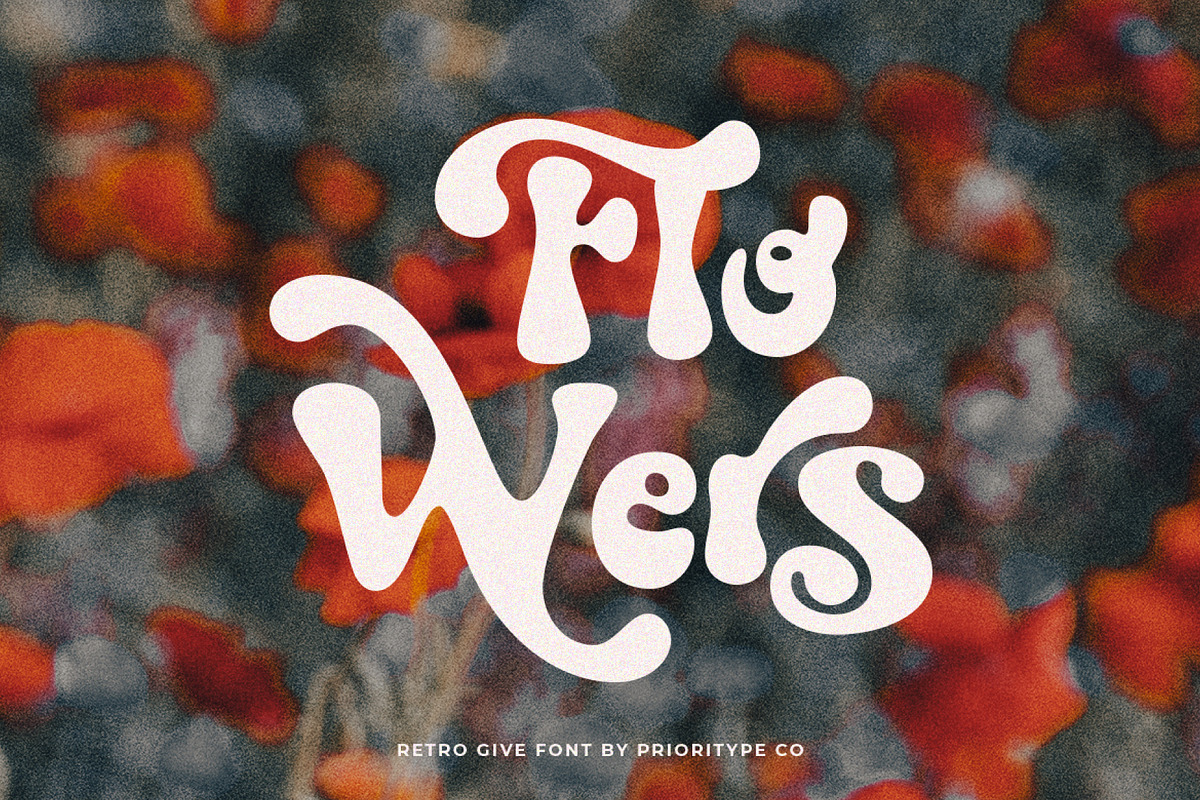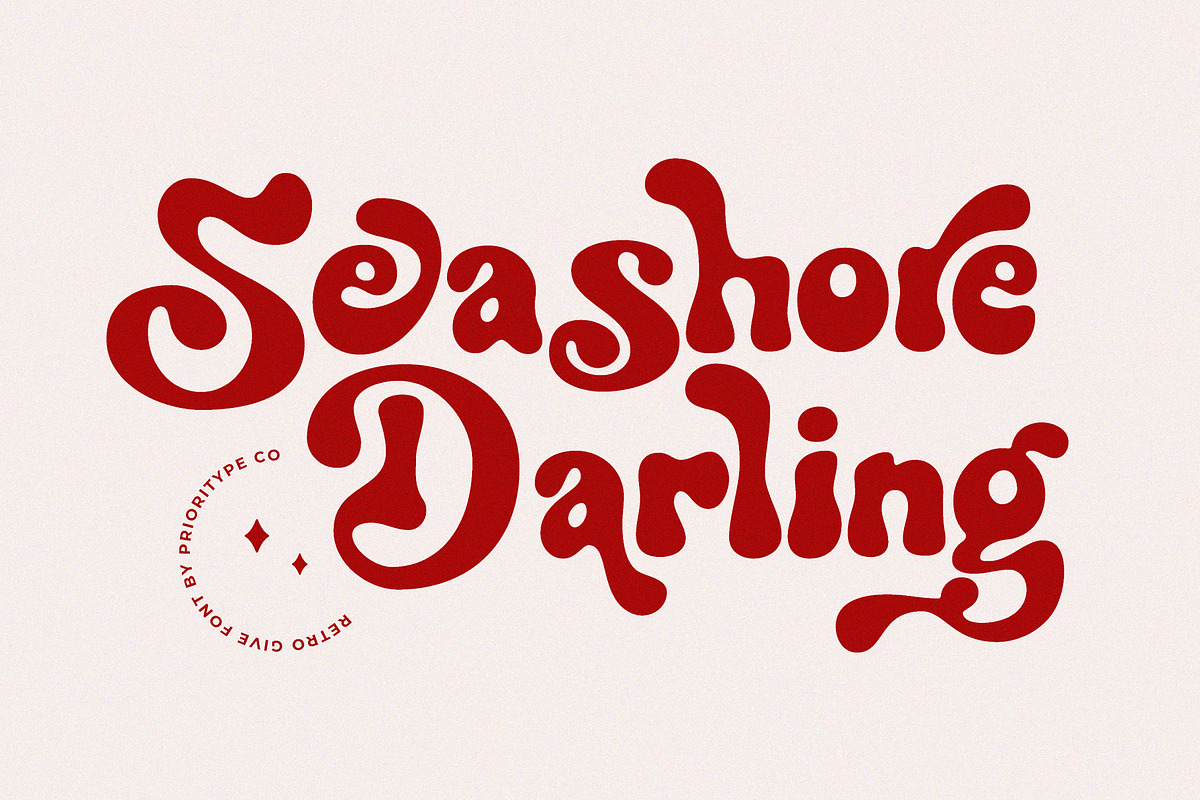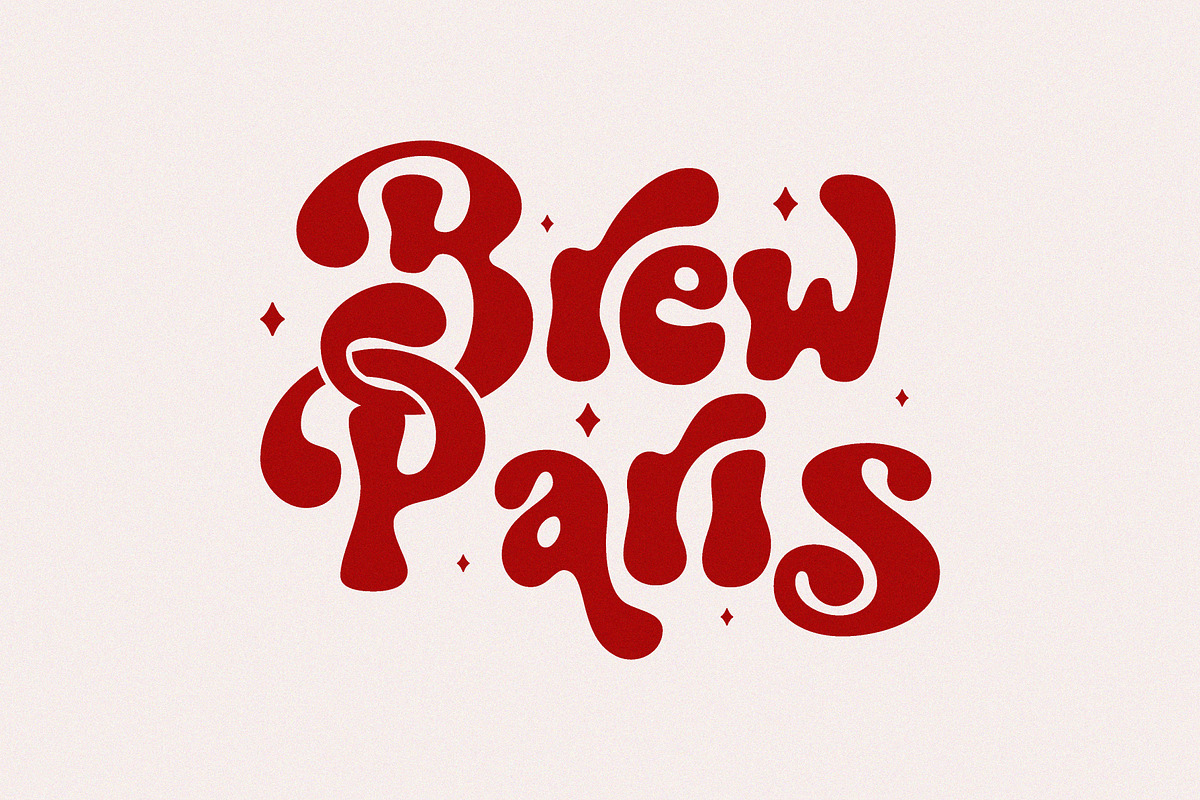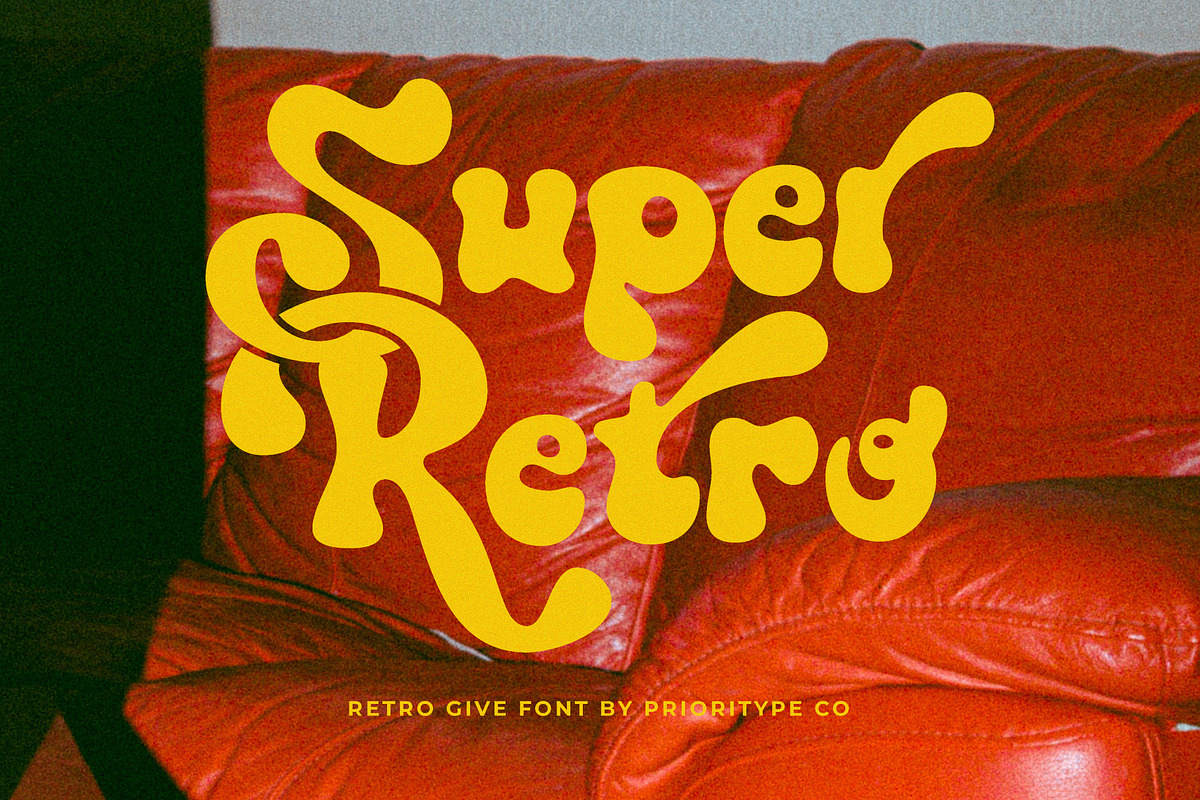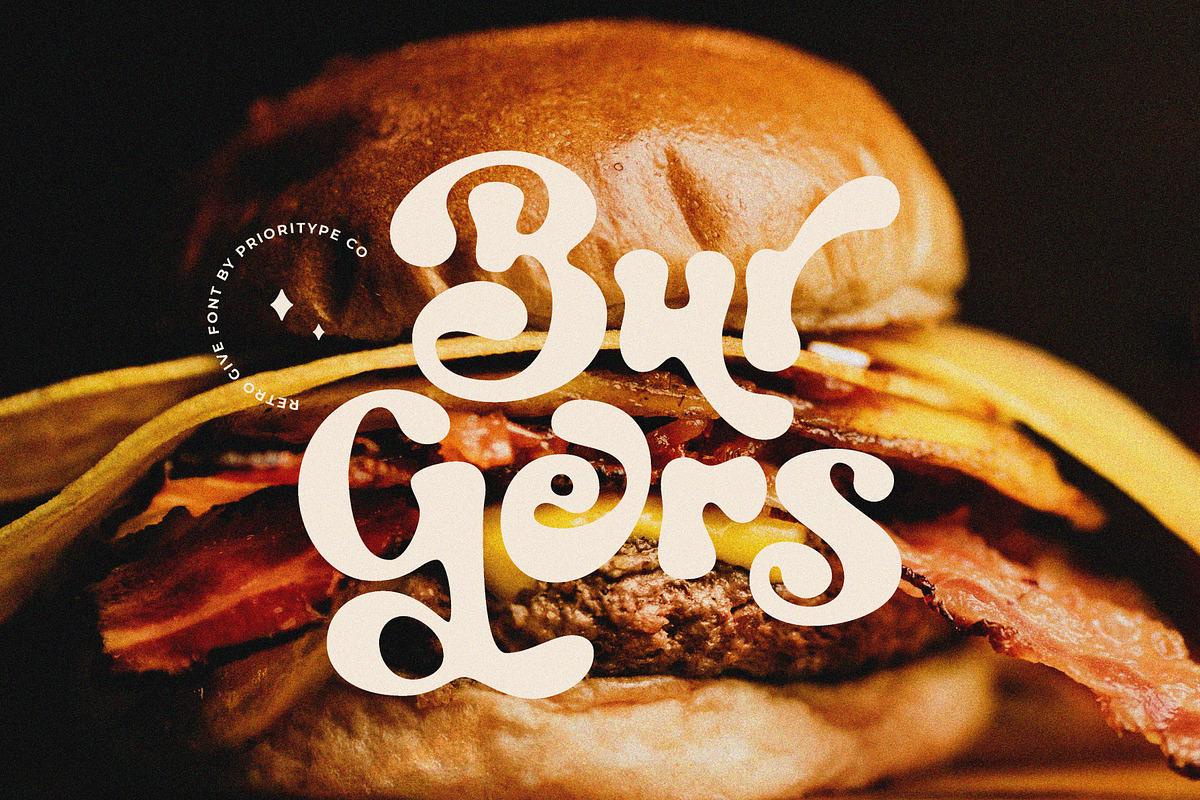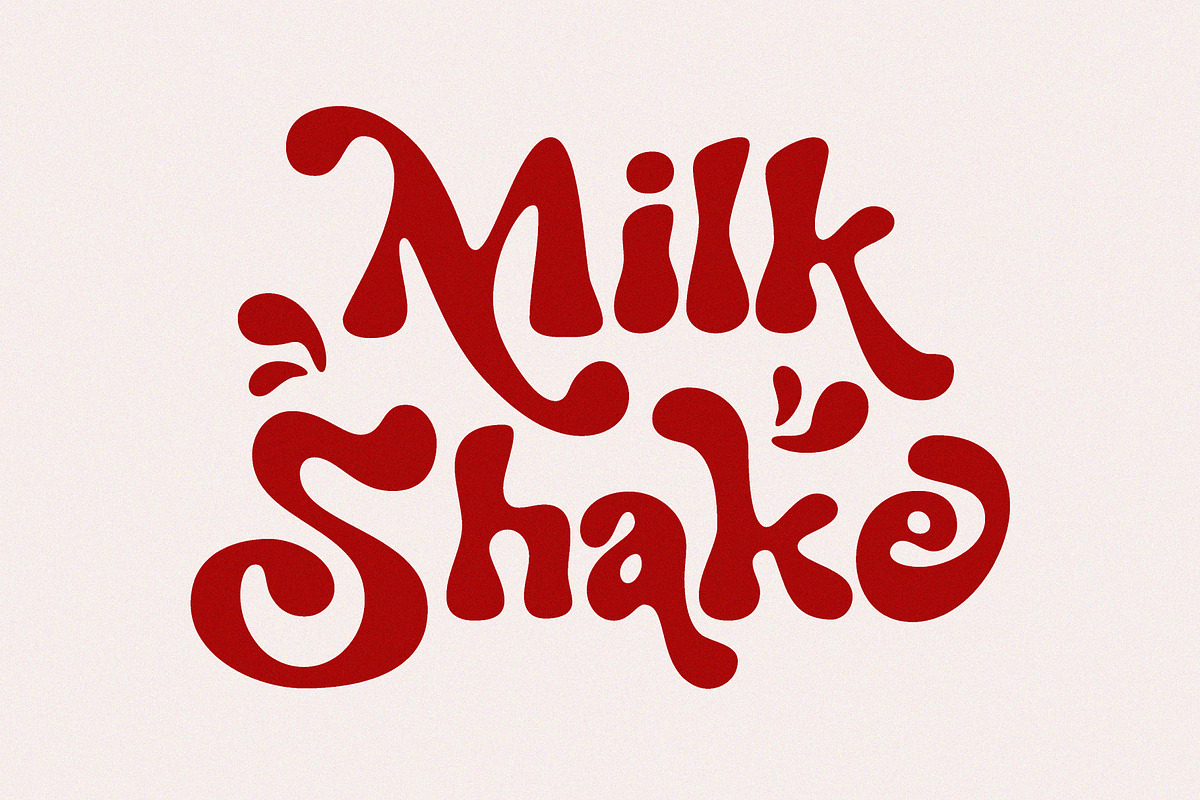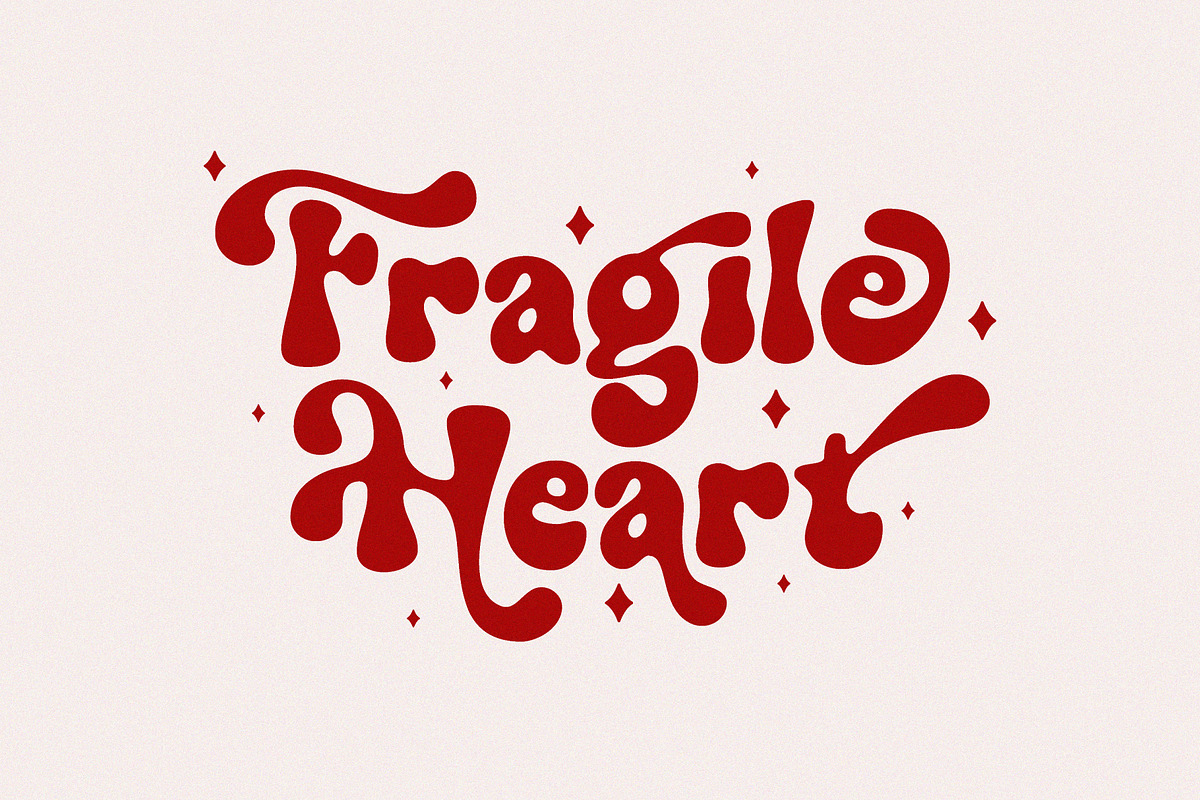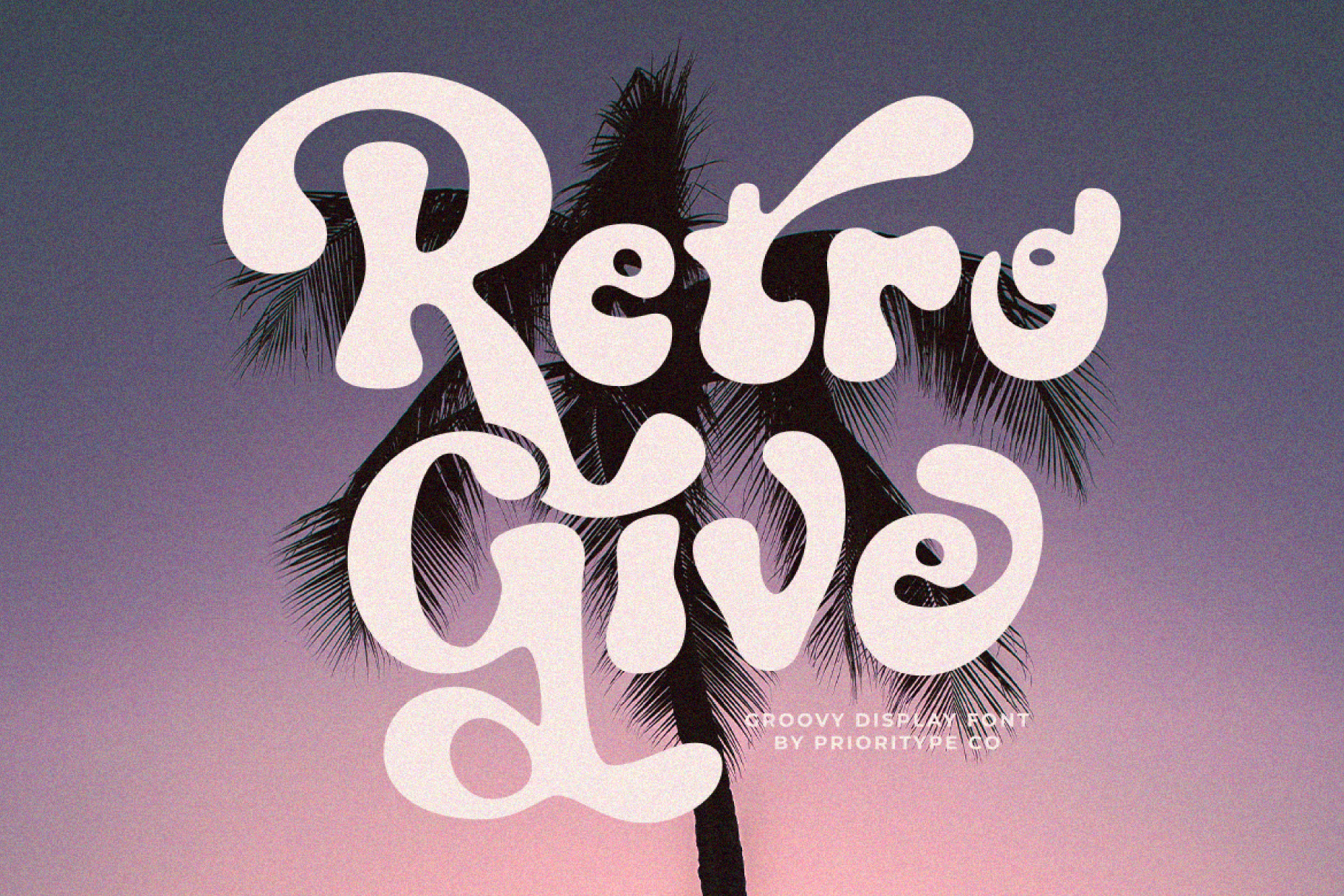
Retro Give - Groovy Display Font
Hand drawn font with fun chubby characters. Equipped with various alternative characters to strengthen your visual design. Suitable for branding designs, logos, social media posts, posters etc.
- Features: Uppercase, Lowercase, Numeral, Punctuation, Multilingual, Alternates & Ligatures.